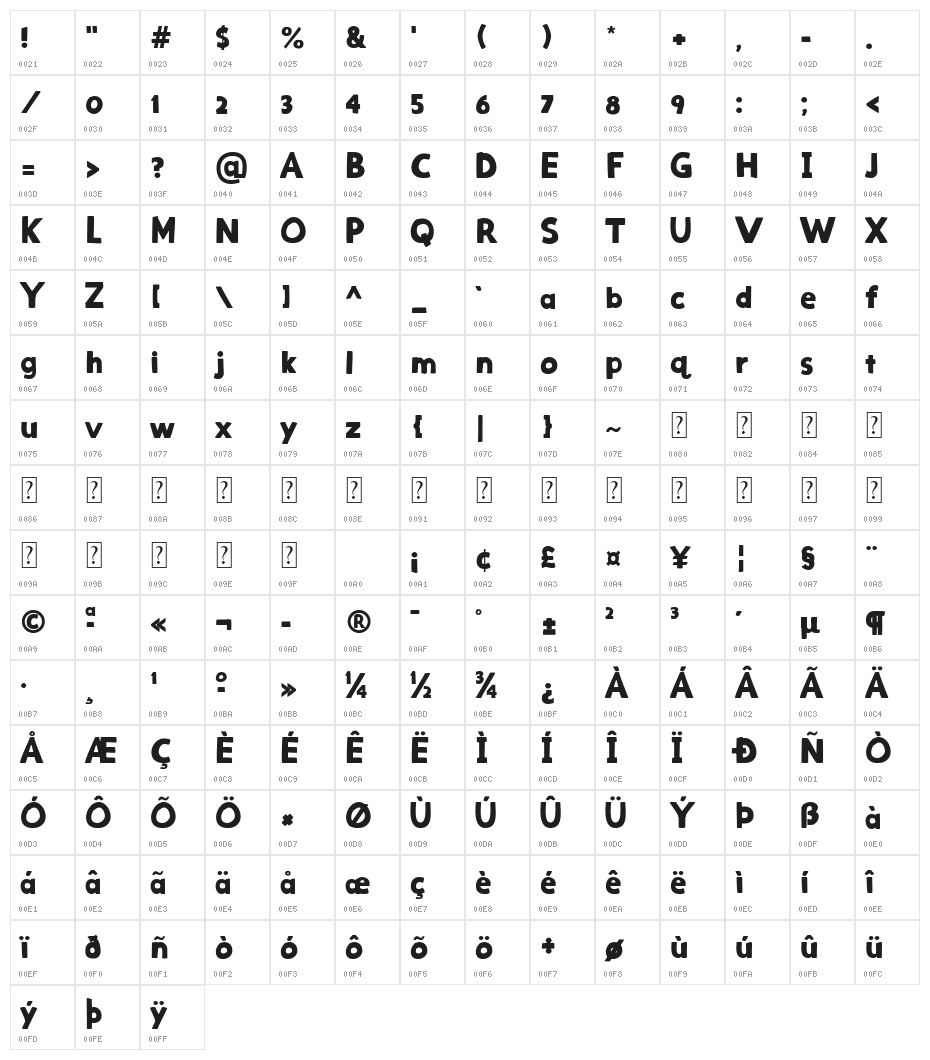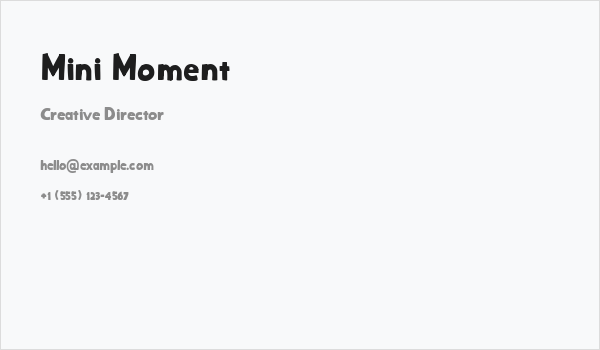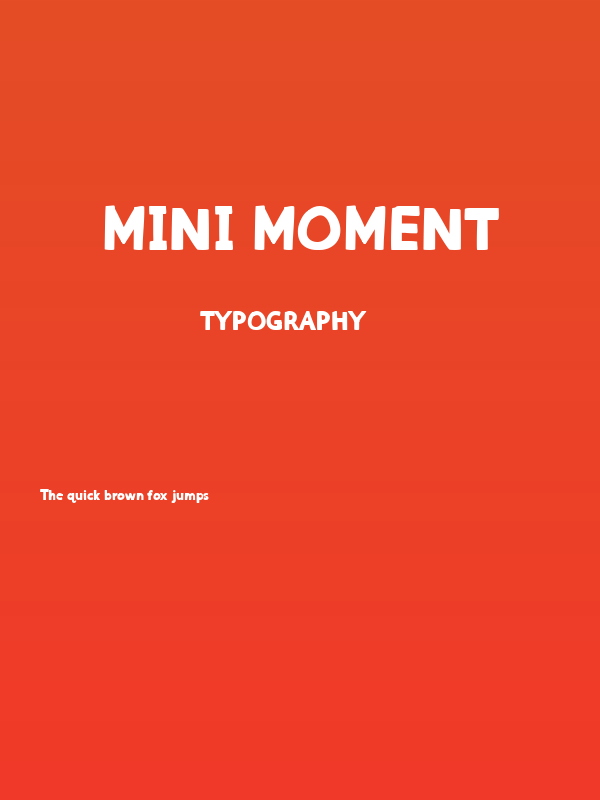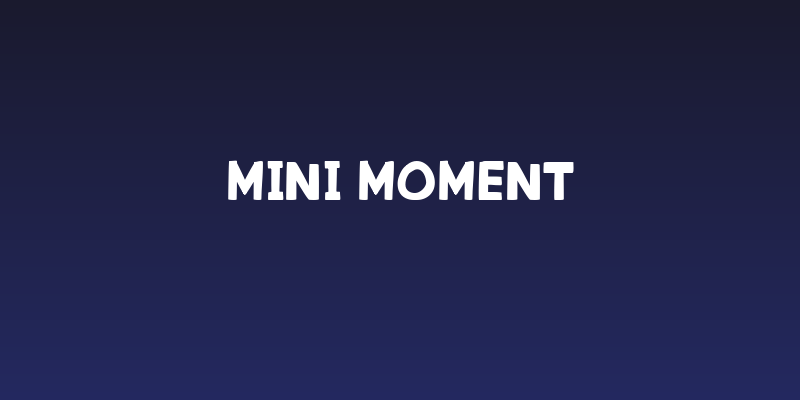
Mini Moment Font
Mini Moment Description
This font features a playful and bold style with rounded edges, giving it a friendly and approachable appearance. The letters are slightly condensed, which adds a compact feel without compromising readability. The uppercase and lowercase characters maintain consistent proportions, while the numerals are clear and distinct. Special characters are well-integrated, matching the overall aesthetic. The font's design is versatile, suitable for both digital and print media, and it stands out with its unique charm and personality.
| Proposed Projects | Ideal for children's books, playful branding, casual invitations, and social media graphics. |